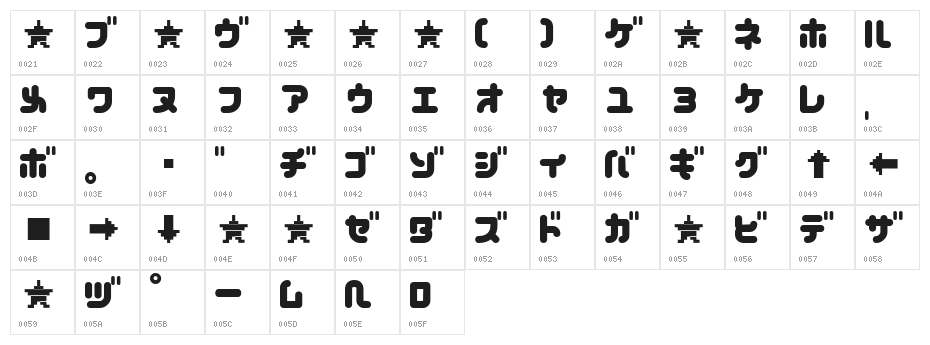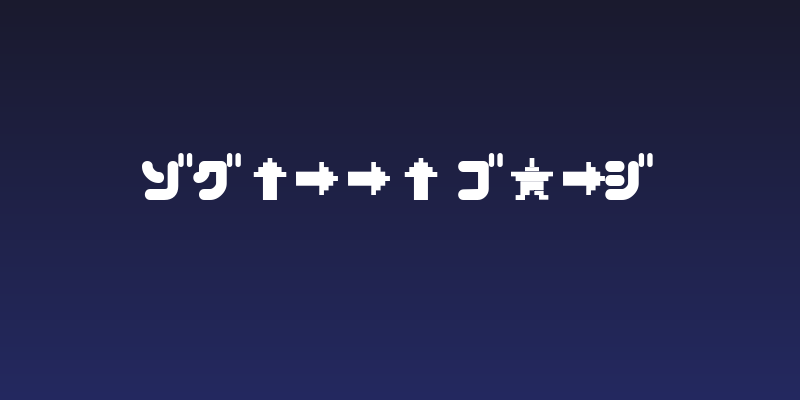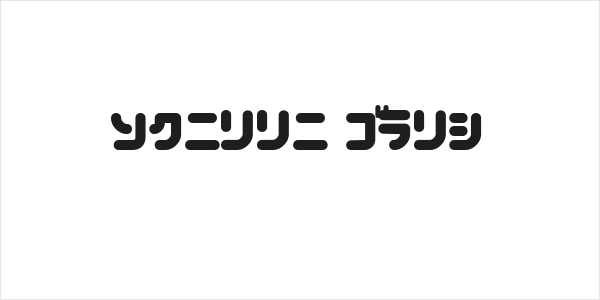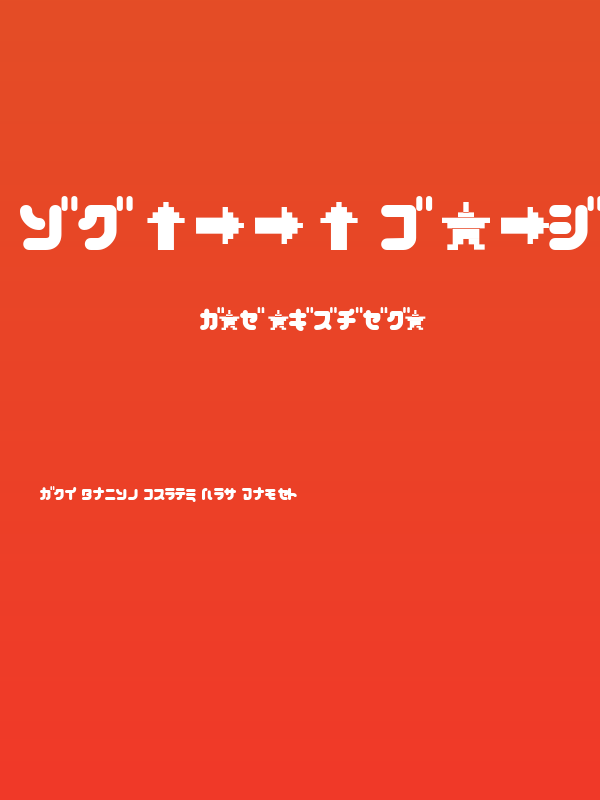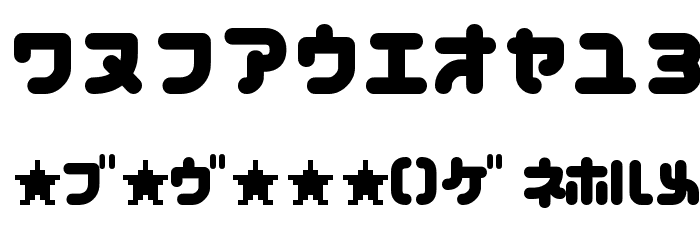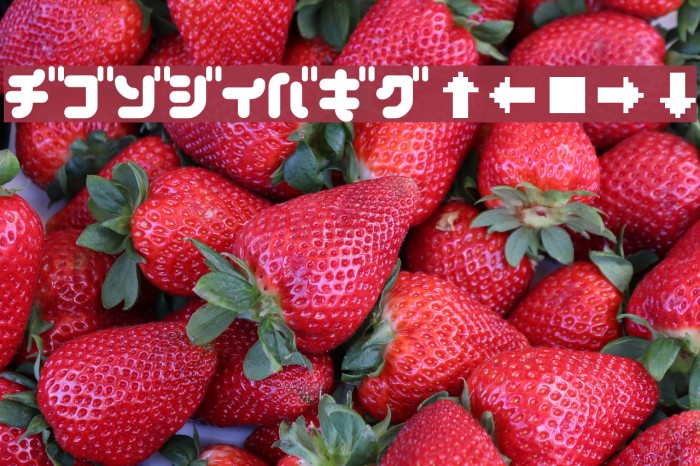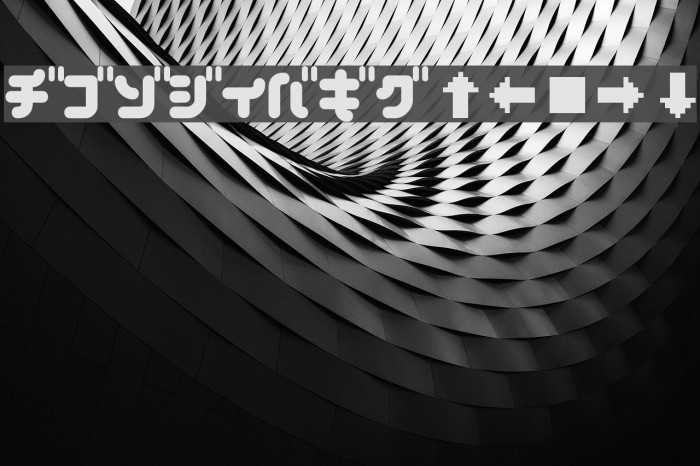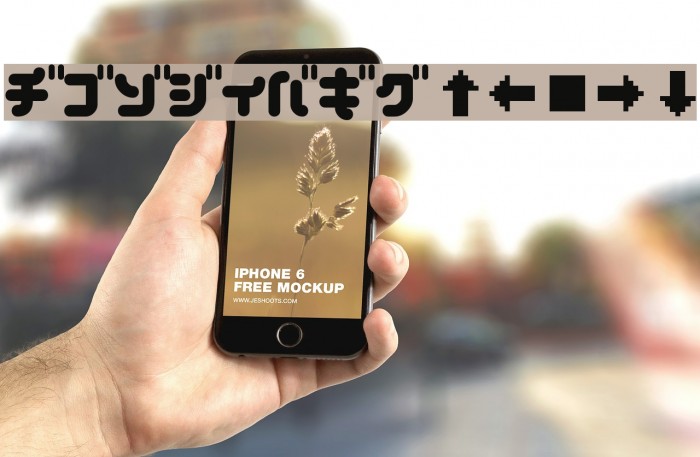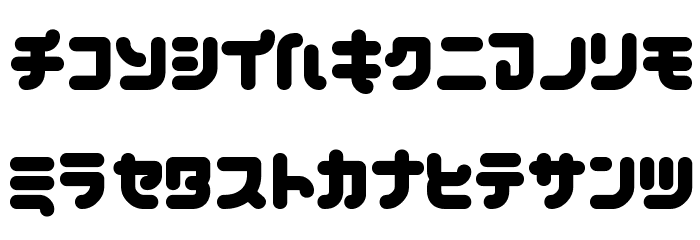
chilli Bold Font
chilli Bold Description
This font features a bold and playful design with rounded edges and a thick, uniform stroke. The characters are highly stylized, giving off a modern and fun vibe. The overall appearance is chunky and substantial, making it ideal for grabbing attention. The letters are evenly spaced, providing a clean and structured look. This font is particularly effective for creative and informal projects where a sense of whimsy or boldness is desired. Its distinctive style makes it stand out, ensuring that any text set in this font will be noticed.
| Overall Style | Modern, Playful |
| Proposed Projects | Ideal for children's books, playful branding, posters, and creative digital content. |